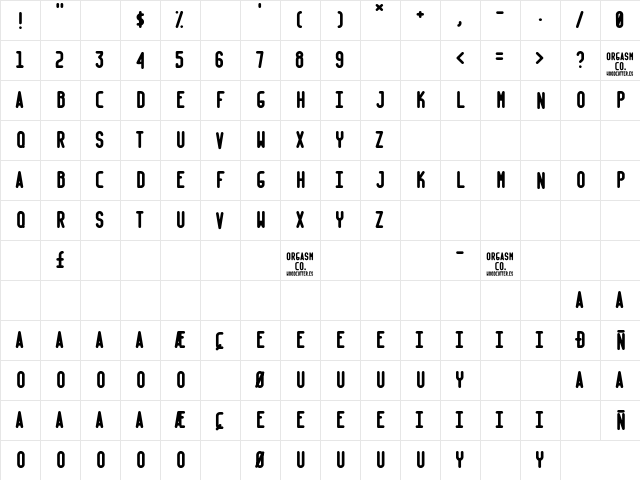
Orgasm Co. Regular
| Designer | Jordi Manero Pascual |
Design Context for Orgasm Co. Typeface
Orgasm Co. offers clean, dependable letterforms without strong stylistic allegiance, making it a practical choice for designers who need flexibility.